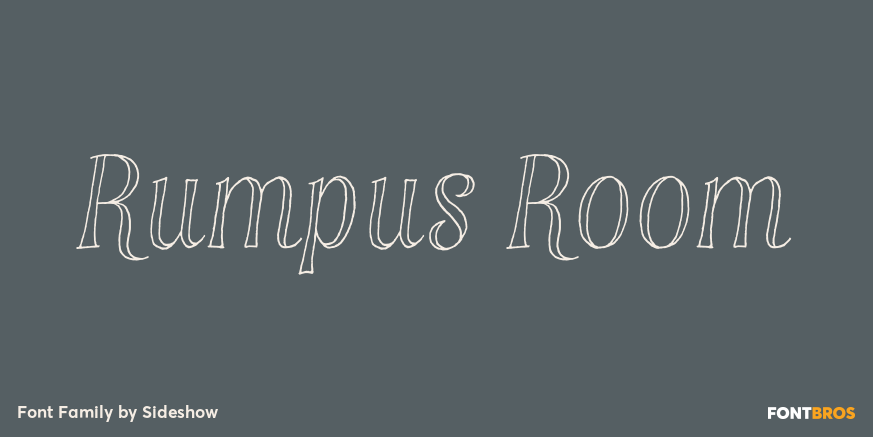
Rumpus Room
About Rumpus Room
Hey everybody! We could use a little excitement and I know just the place. Let\’s head down to the Rumpus Room! It\’s fun, it\’s casual and it\’s a guaranteed good time for all! This charming handwritten pen script looks right at home on your design work…